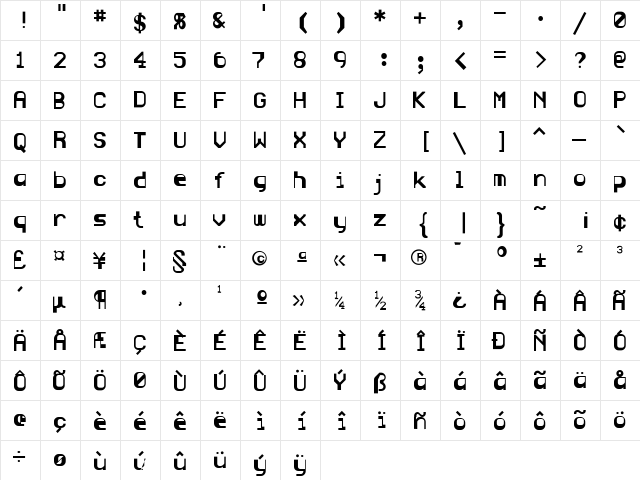
Blue Medium
Design Context for Blue Typeface
Blue is a composed and adaptable typeface that performs quietly and consistently across a wide range of design contexts.